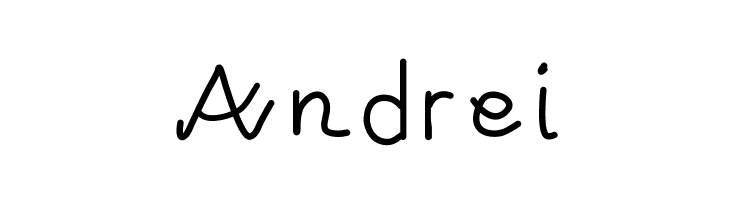
( Fonts by Vanessa Bays - bythebutterfly.com )
A playful, hand-drawn font with curly, rounded letterforms.
A playful, hand-drawn font with a whimsical and friendly style.
( Fonts by Jonathan Harris - www.tattoowoo.com )
A bold, sketch-like font with a hand-drawn, textured appearance.
( maciej.chodakowski.com )
A whimsical, hand-drawn font with dots and lines creating a magical appearance.
( Fonts by Astigmatic One Eye Typographic Institute - Brian J. Bonislawsky - astigmatic.com )
A distressed, hand-drawn font with a vintage and rustic feel.
A modern, geometric sans-serif font with balanced spacing and clear characters.
( Fonts by Astigmatic One Eye Typographic Institute - Brian J. Bonislawsky - astigmatic.com )
Hand-drawn cat face illustrations used as letterforms.
( Fonts by Khrys Bosland )
A playful, hand-drawn font with quirky details and a lively appearance.
( Fonts by Astigmatic One Eye Typographic Institute - Brian J. Bonislawsky - astigmatic.com )
A decorative and abstract font with fluid, calligraphic-inspired letterforms.